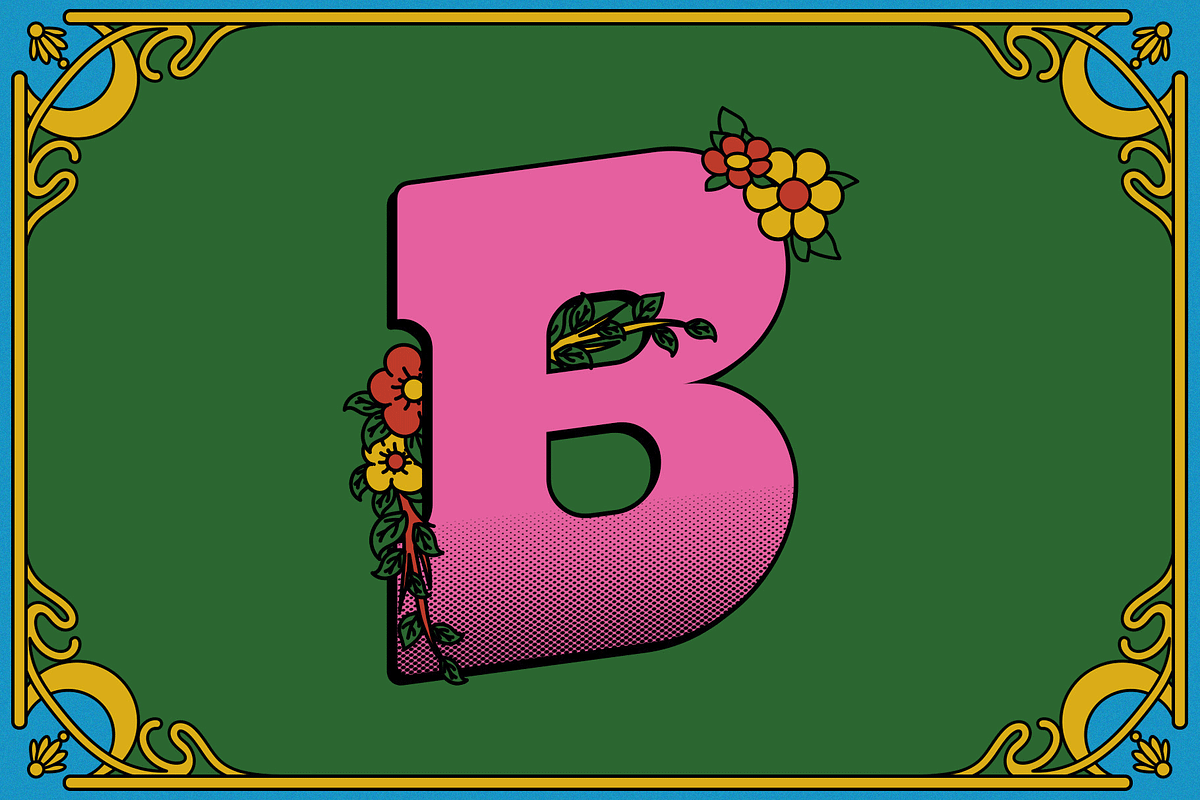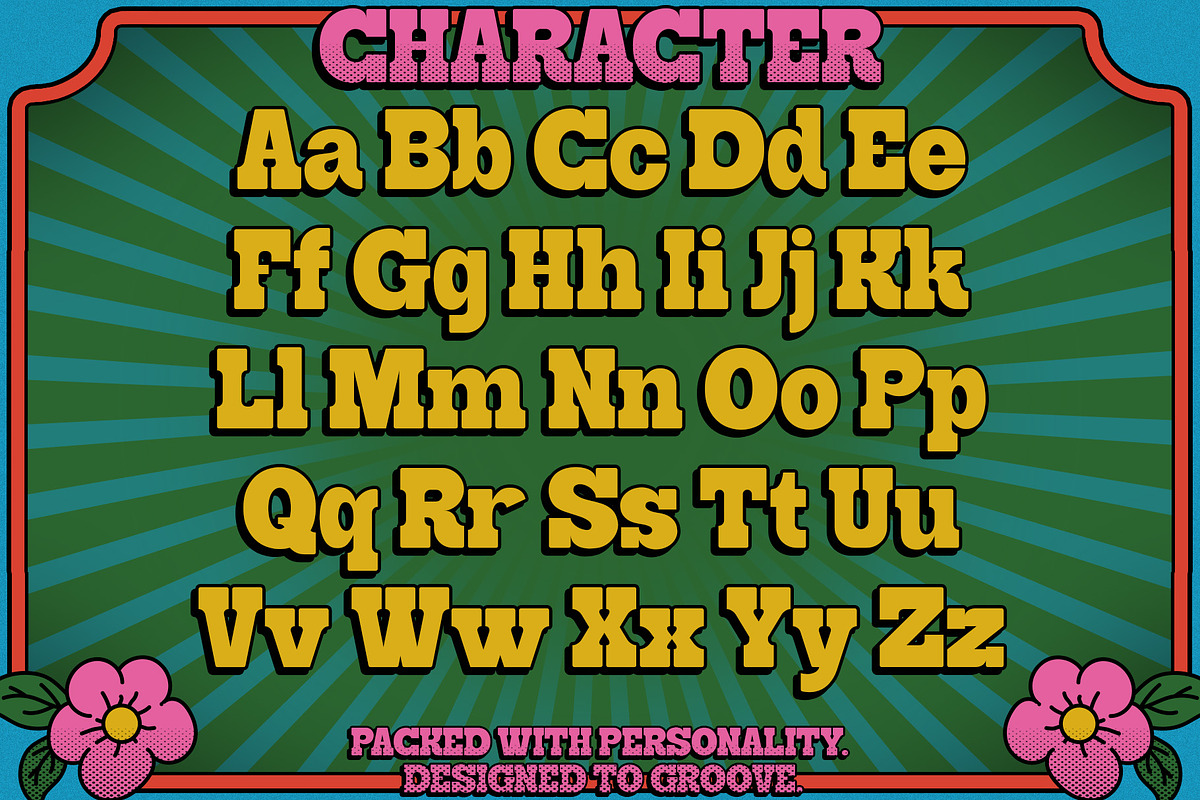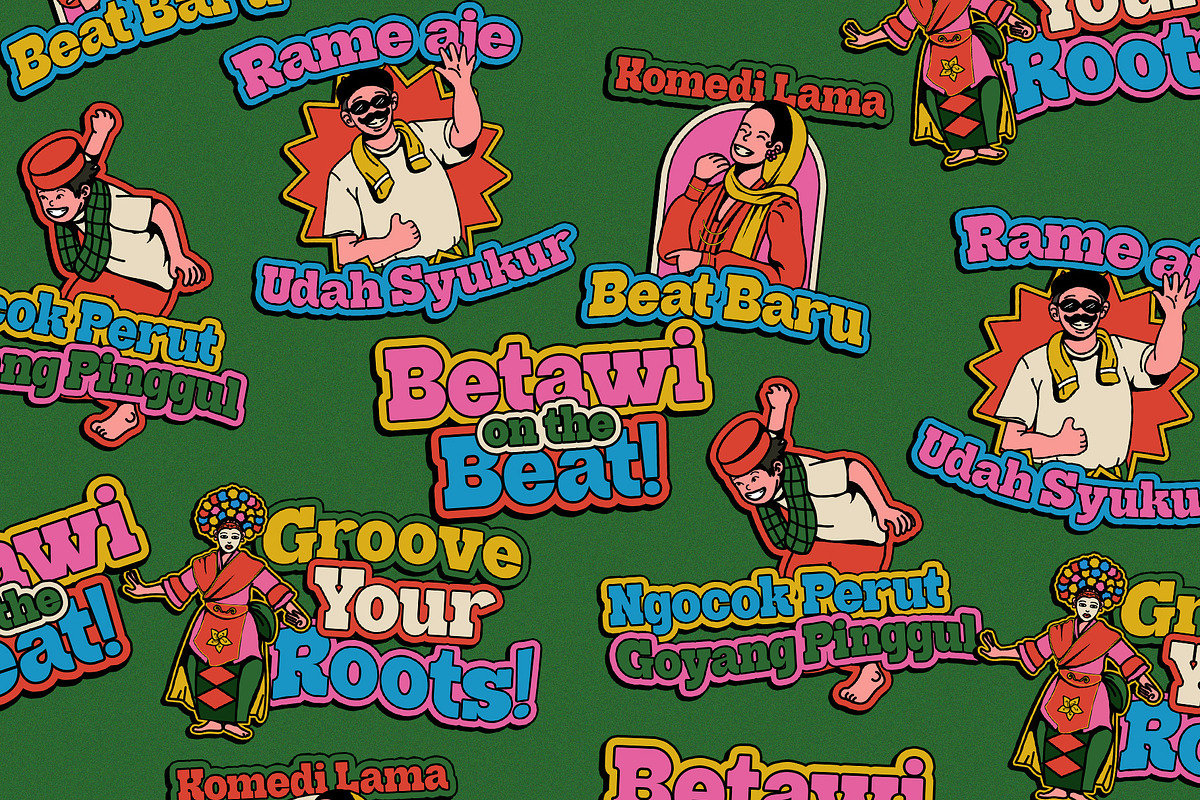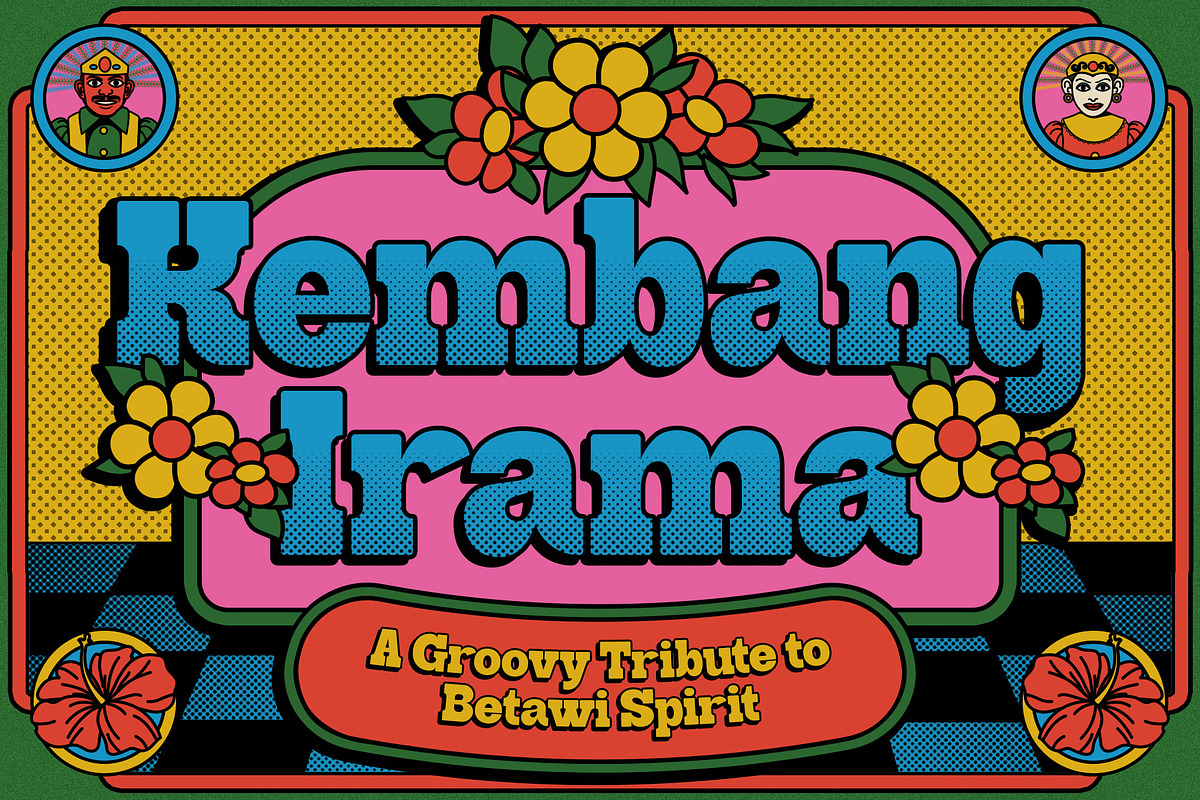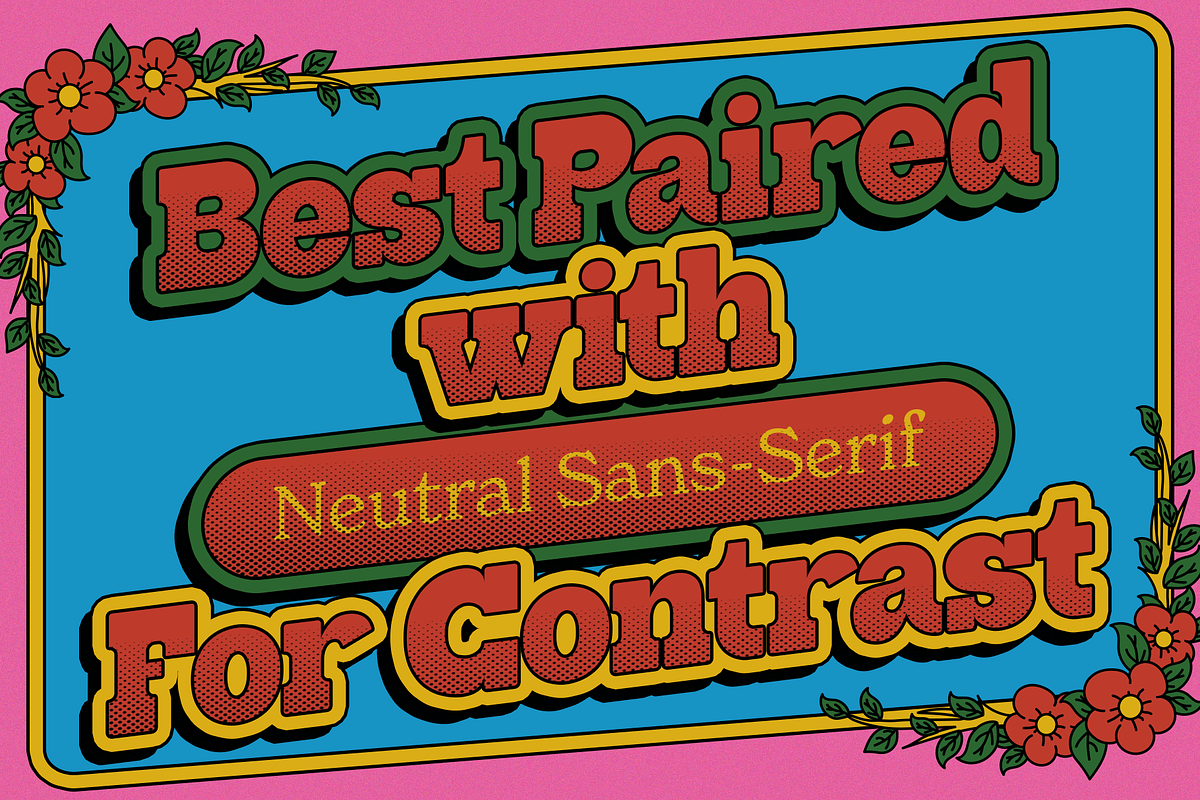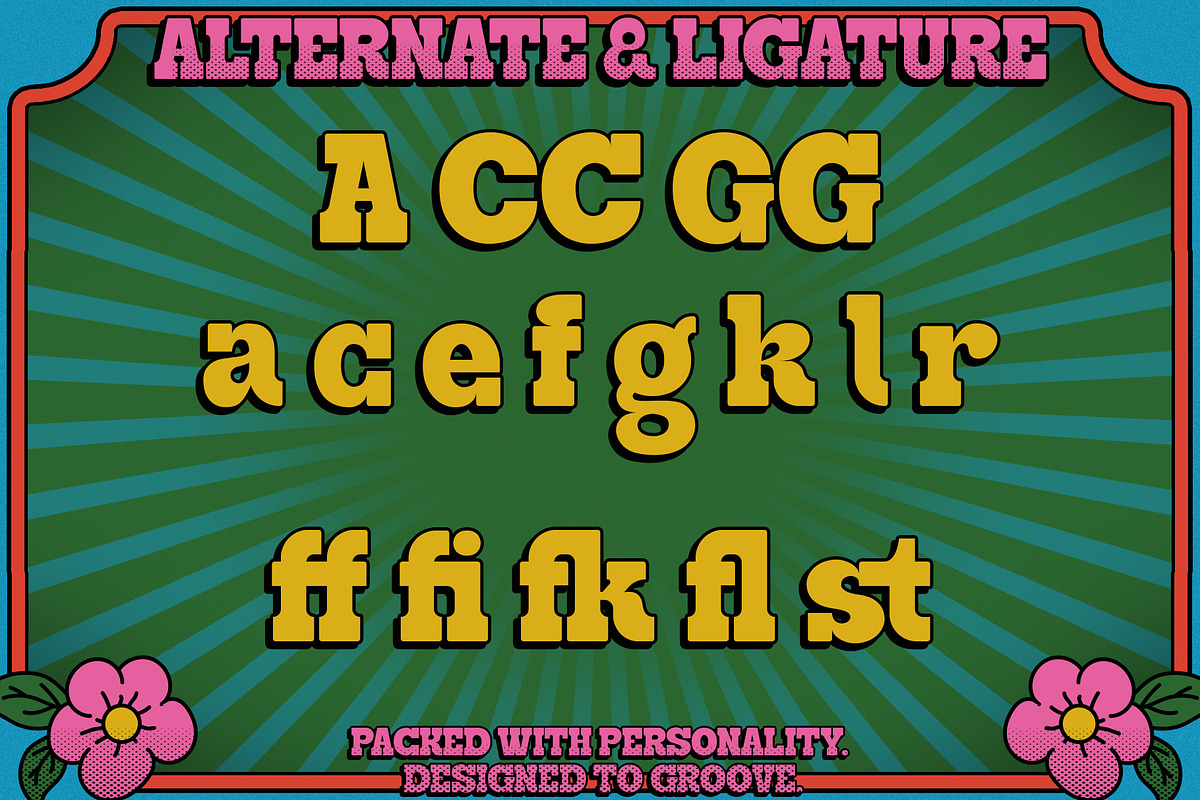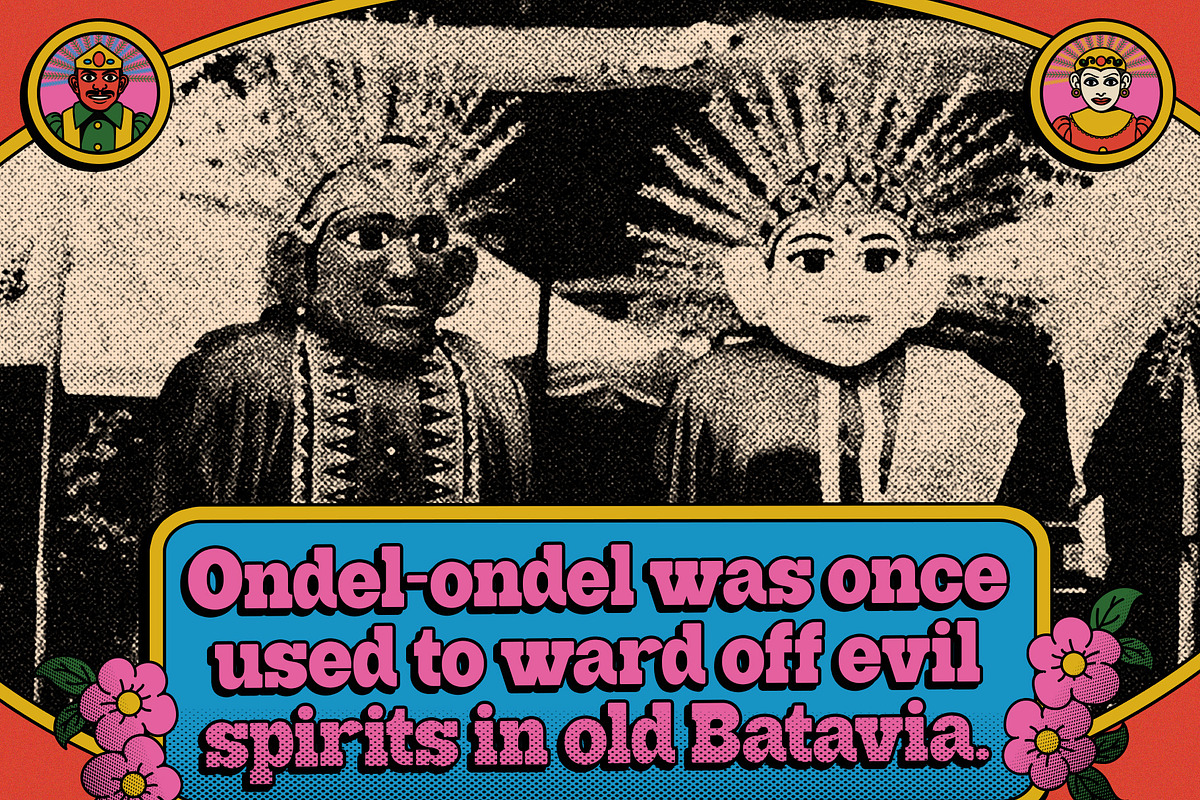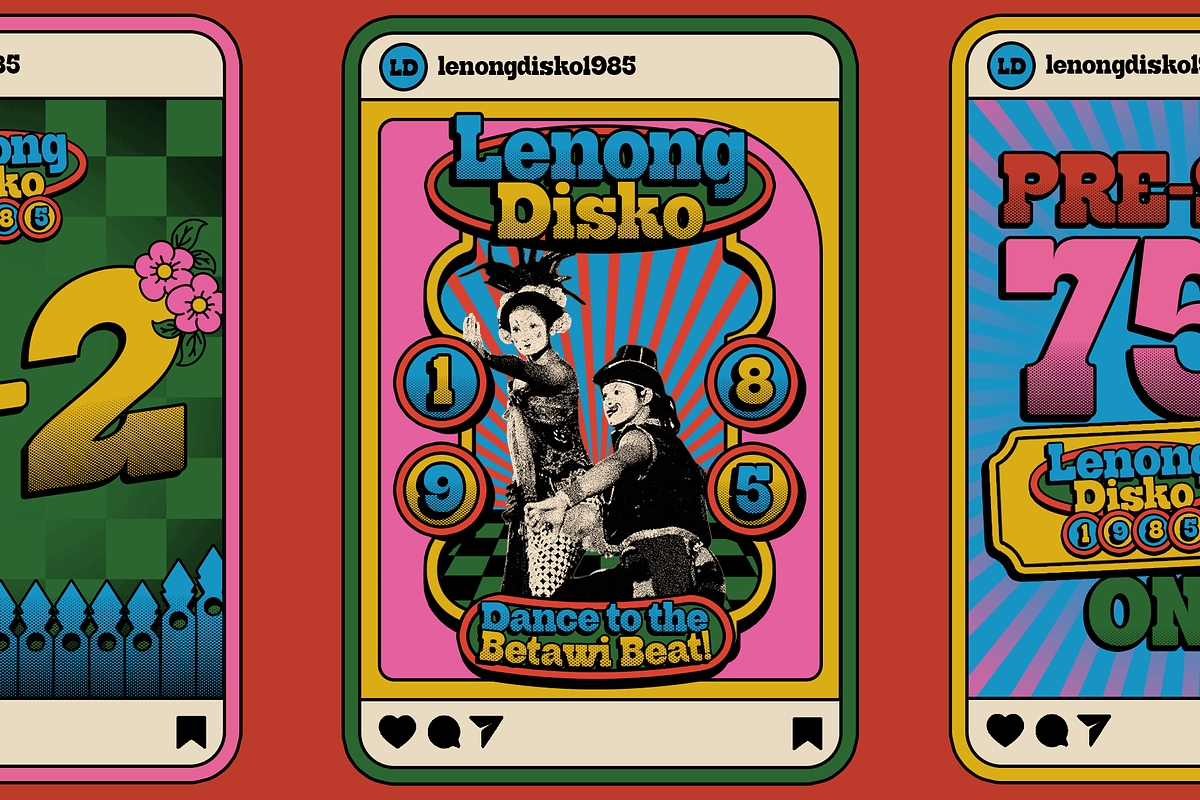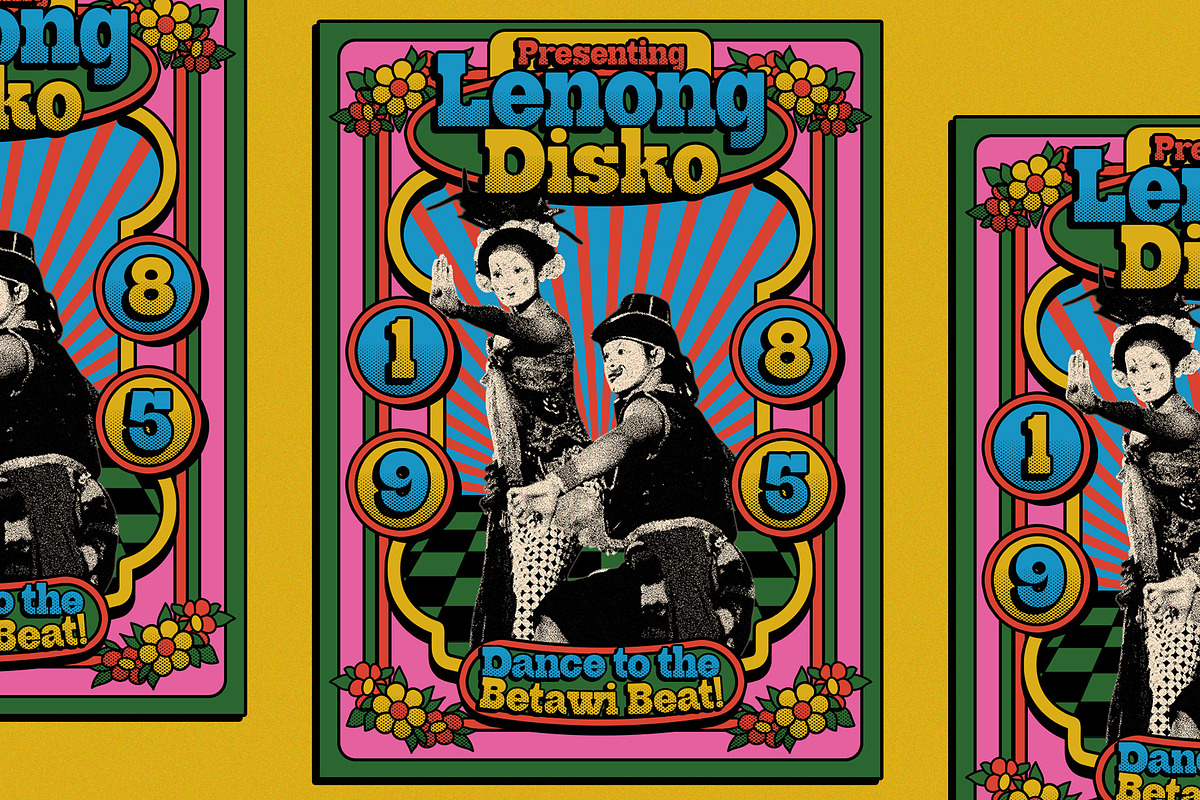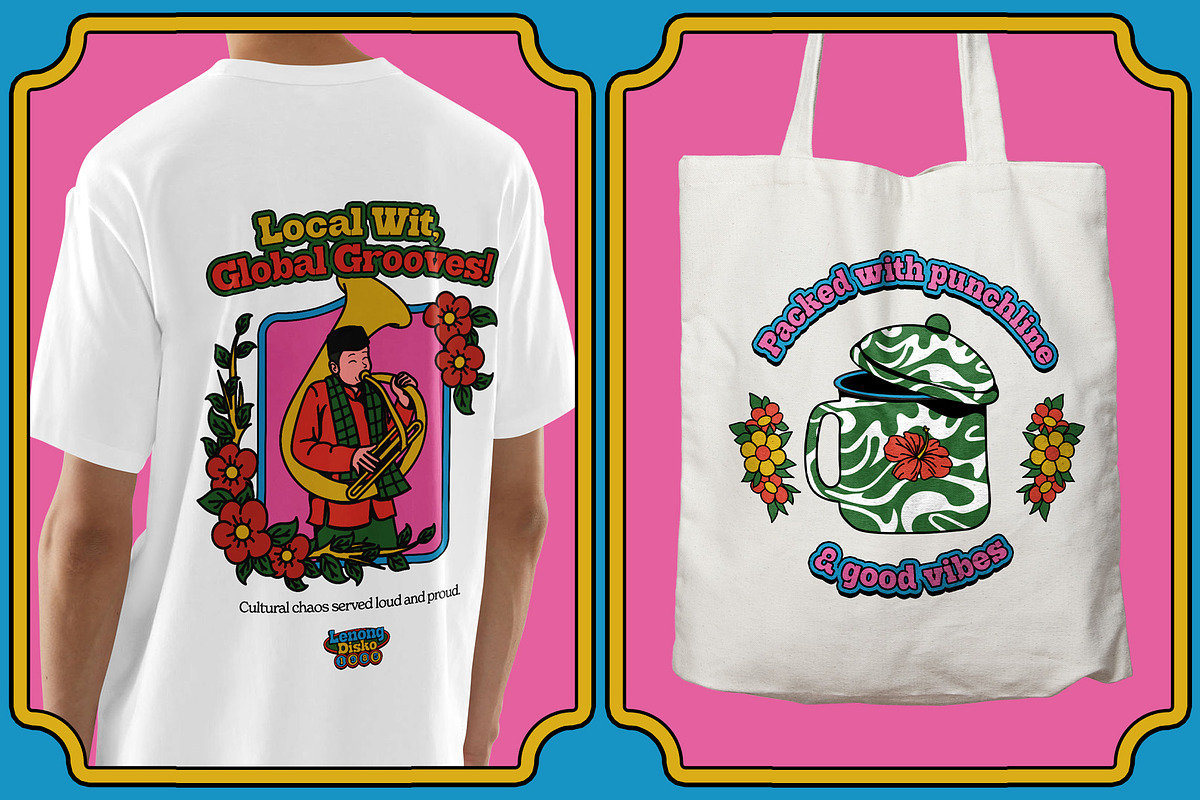
Kembang Irama – Slab Serif Font
Kembang Irama – Groovy Display Font
Kembang Irama is a playful retro typeface inspired by the vibrant energy of 70s Indonesia and the joyful soul of Betawi culture. With bold shapes, rounded serifs, and nostalgic flair, this font brings a festive and funky vibe to every design. Perfect for projects that aim to stand out with a local twist and groovy charm.
- All-caps display style with unique alternates
- Layered, bold retro letterforms
- Retro posters & album covers
- Vintage-inspired branding
- Cultural event promotions
- Packaging & merchandise
- Social media visuals with character
Need Help? For questions or support, feel free to message us directly on Creative Market or email us at 📩 inviline.otf@gmail.comKembang Irama is a groovy display font that captures the vibrant and joyful soul of Betawi culture. With thick retro curves, pop-art styling, and funky ligatures, this font feels like a party in every letter. Its bold and bubbly form is perfect for projects that want to stand out while staying playful.